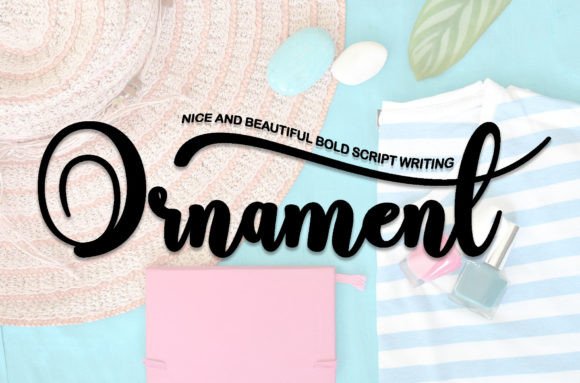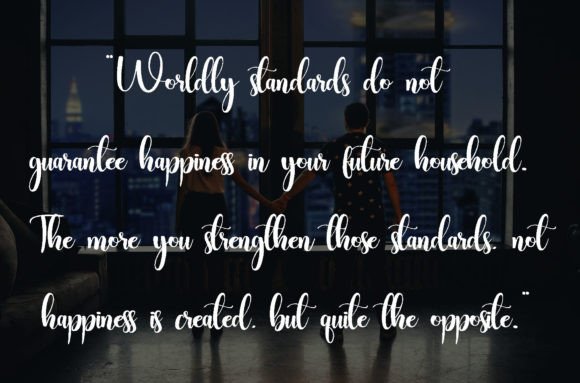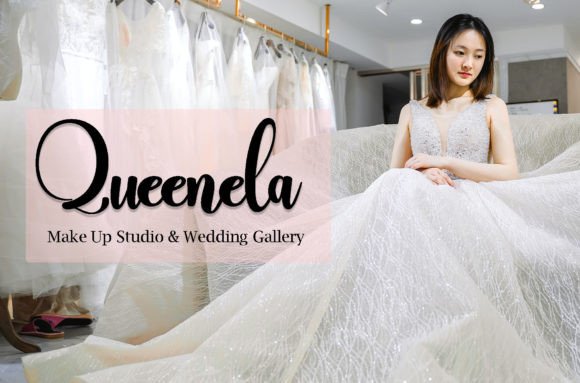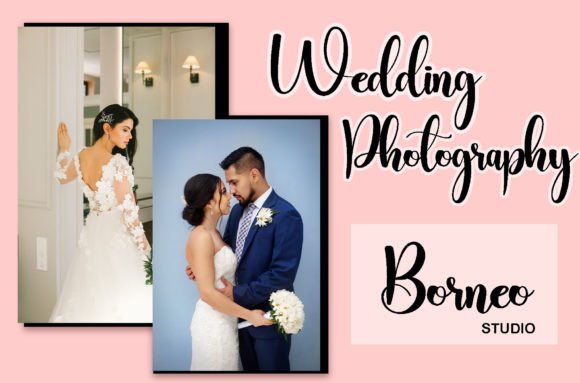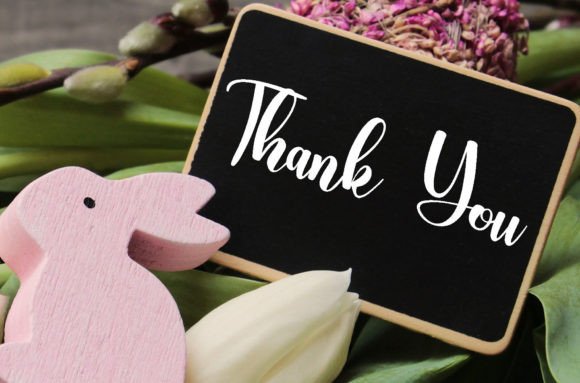
Ornament Font
The Ornament Font Download is a bold and stylish script designed to bring strength and elegance to your creative work. With smooth curves and confident strokes, this typeface is perfect for designers who want to add flair and personality to their projects. Because of its versatile nature, Ornament fits seamlessly into logos, posters, invitations, packaging, and digital designs.
A Bold Script with Stylish Elegance
Ornament blends classic handwritten flow with bold, modern strength. Unlike plain fonts, this Ornament script font delivers both beauty and impact, making it suitable for projects that require a strong visual presence. As a result, it enhances designs with confidence and creativity.
Special occasions always call for stylish typography. The Ornament Font is excellent for wedding invitations, thank you cards, seasonal greetings, and event stationery. Moreover, its bold script details make text look warm, elegant, and unforgettable.
Branding and Logo Design with Ornament Font
Typography defines a brand’s image, and the Ornament handwritten font is a strong choice for boutique logos, product packaging, and advertising. In addition, its stylish boldness ensures that businesses stand out while maintaining elegance and readability.
Posters, Titles, and Creative Displays
The Ornament Font Download works beautifully for posters, magazine covers, and promotional banners. Therefore, it adapts well to both large-scale and small-scale designs, always keeping its stylish script character intact.
Online visibility depends heavily on strong typography. The Ornament typeface integrates seamlessly into Instagram graphics, Pinterest designs, YouTube thumbnails, and blogs. Its bold handwritten form ensures your content looks striking and polished.
Why Designers Choose Ornament Typeface
Designers often choose fonts that combine personality with practicality. Many script fonts lose readability in bold weights, but the Ornament handwritten script maintains clarity while keeping its stylish strength. This balance makes it a reliable option for professionals and creatives.
Add Bold Elegance to Your Projects Today